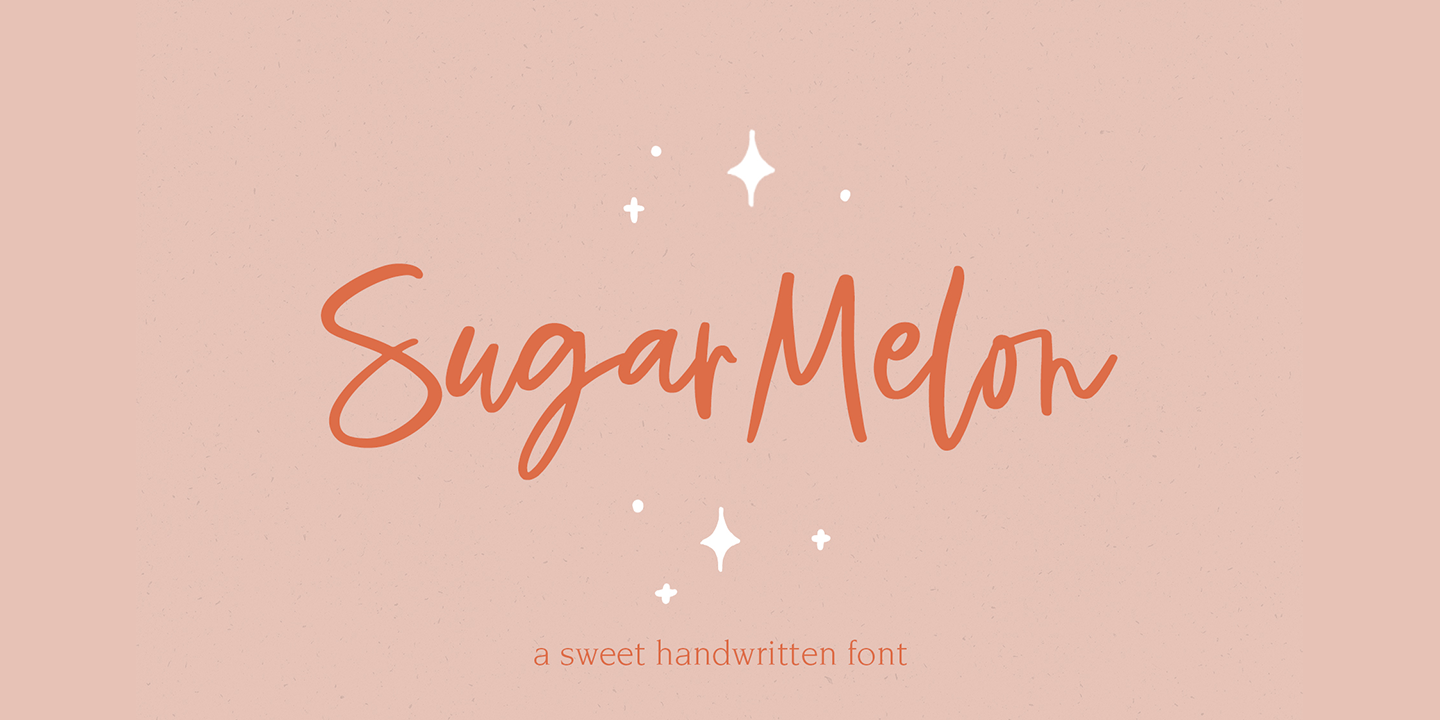
The Sugar Melon Font is ideal for candy store branding, sweet bakery signage, children's party invitations, ice cream shop logos, dessert packaging designs, playful social media graphics, summer festival promotions, fruit market advertisements, and delightful food brand communications that require cheerful, sweet typography with irresistible charm.
What makes the Sugar Melon Font so exciting is its deliciously sweet ability to capture the pure joy and carefree happiness associated with summer treats, childhood memories, and life's most delightful indulgences. This enchanting typeface embodies the essence of sweetness and playful fun, featuring rounded letterforms with bouncy proportions and candy-inspired styling that creates an immediate sense of joy, celebration, and irresistible appeal. The font's sweet character and playful personality make it the perfect choice for brands and projects that celebrate life's sweeter moments, childhood wonder, and the simple pleasures that bring smiles to faces of all ages.
The Sugar Melon Font family typically includes regular, light, and bold weights, along with playful alternates and sweet design elements that provide designers with delightful tools for creating charming candy-themed branding systems and joyful visual communications across various confectionery applications.
Confectionery businesses and sweet treat brands consistently choose Sugar Melon Font Free Download for its unmatched ability to convey sweetness and playful brand personality. This delightful typeface represents the perfect fusion of candy-inspired aesthetics and professional functionality, offering brands a charming tool for building memorable connections with audiences who appreciate life's sweeter pleasures and joyful experiences. Whether you're developing branding for candy shops, creating packaging for sweet treats, designing children's party materials, or crafting playful social media campaigns, this font delivers the sweetness and charm that confectionery communications require.
The lovingly crafted letterforms of the Sugar Melon Font showcase gentle curves and bouncy proportions that create a sense of sweetness and accessibility while maintaining excellent readability across various candy-themed applications. The font's cheerful appearance and sweet charm ensure that brand messages feel delightful, inviting, and aligned with the joyful values that resonate with audiences seeking happiness and sweet indulgences.
Confectionery designers and sweet brand marketers appreciate the font's versatility in creating typography that feels both professionally polished and irresistibly sweet, effectively communicating quality and expertise while maintaining the playful energy essential for building emotional connections with families and sweet-loving communities.
For organizations seeking to establish joyful connections with candy-loving audiences and communicate genuine sweetness through their visual identity, the Sugar Melon Font provides an exceptional typography solution. Its sweet foundation and proven delightful appeal make it particularly suitable for candy manufacturers, ice cream parlors, bakeries, and confectionery brands that prioritize joy, sweetness, and creating memorable sweet experiences.
The font's optimization for both traditional candy packaging and digital sweet marketing platforms ensures consistent delightful impact across all confectionery communication channels, while its timeless sweet aesthetic provides enduring value for candy-focused brand systems requiring typography that authentically represents the enduring appeal of sweetness and the universal joy of life's most delicious treats in today's celebration-focused marketplace.